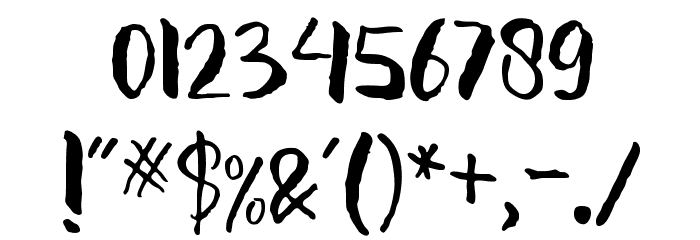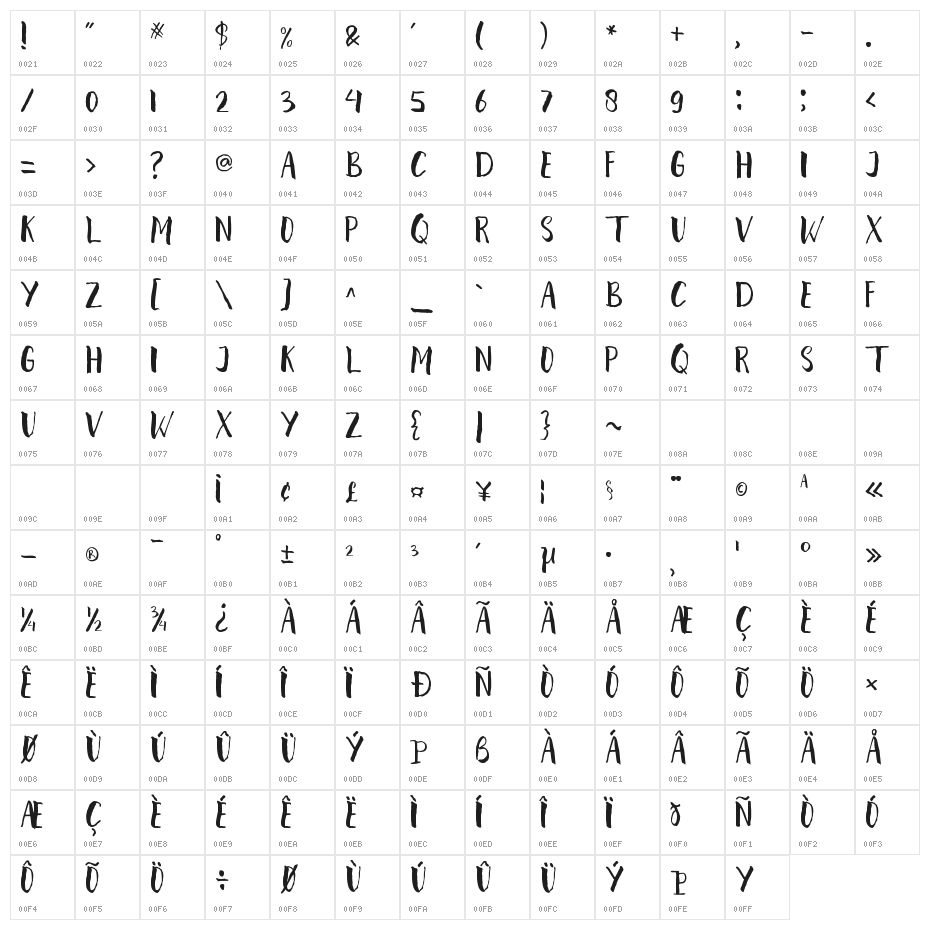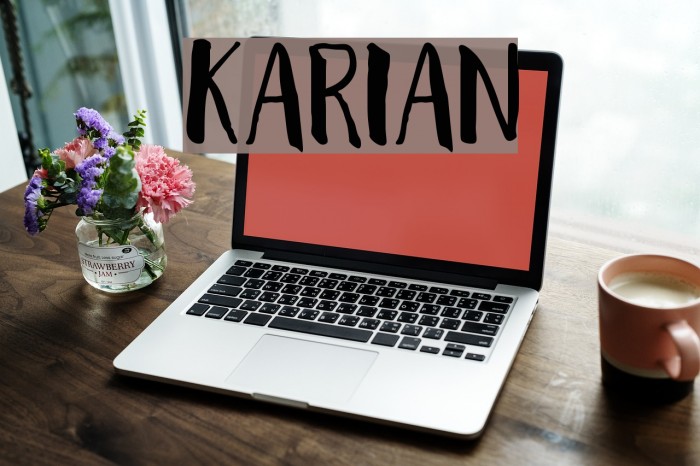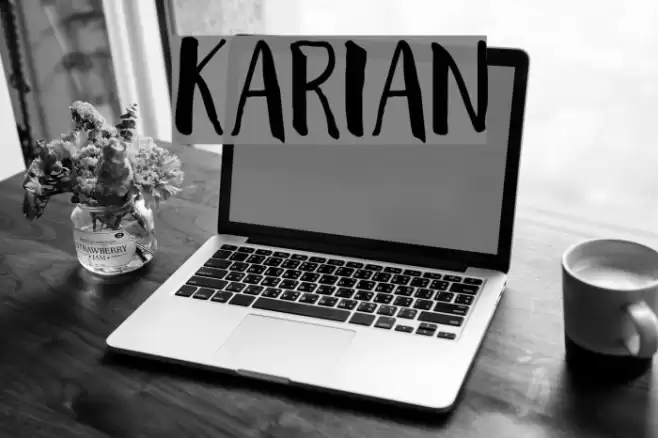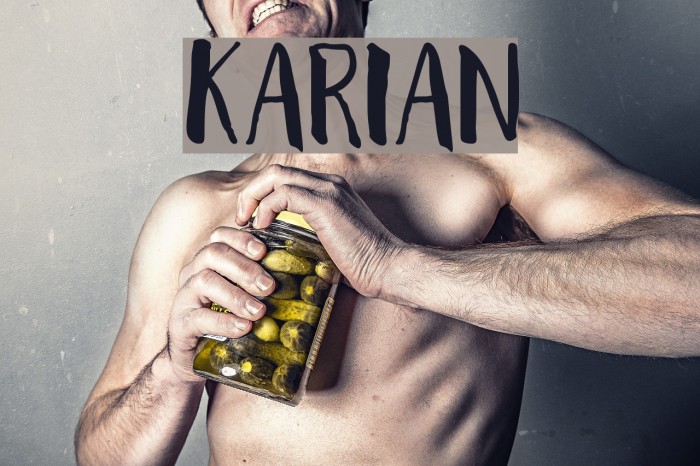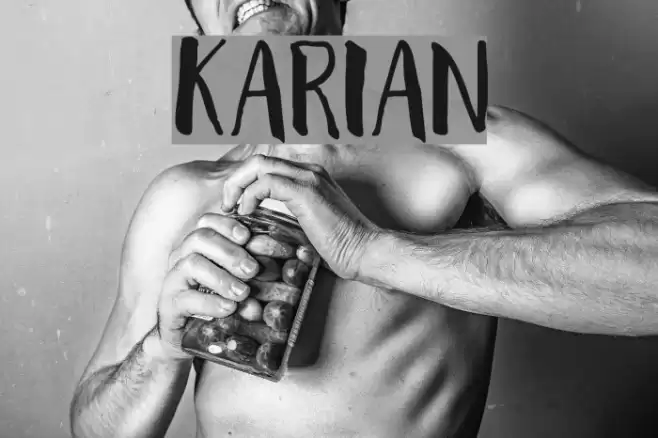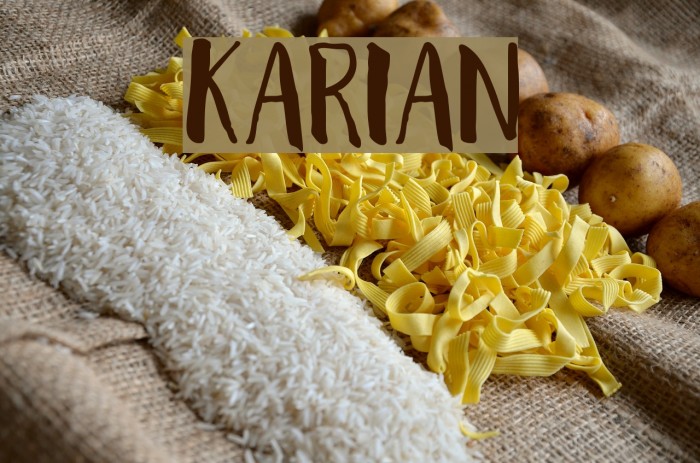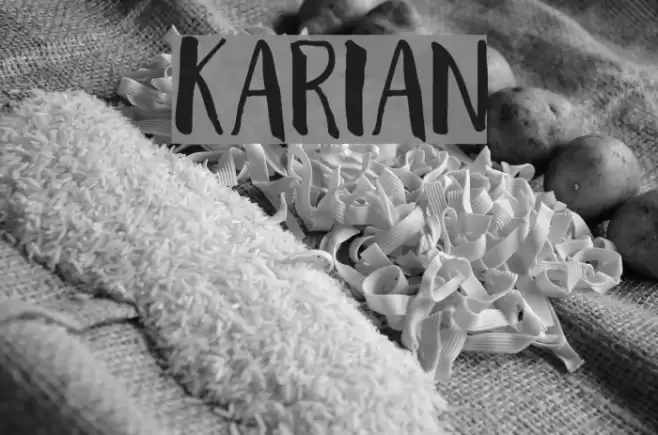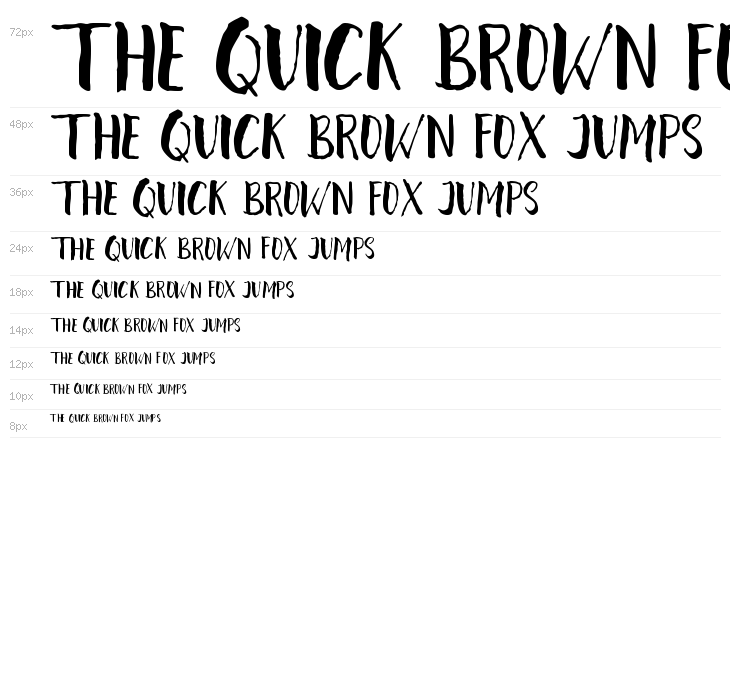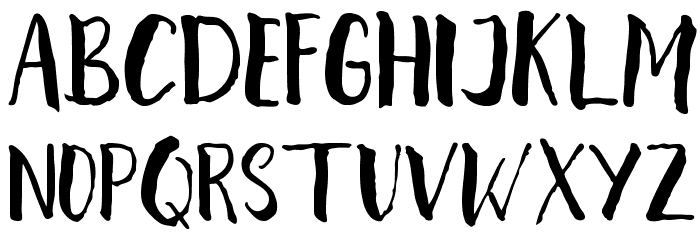
karian Font
karian Description
This font features a bold, expressive style with a hand-drawn appearance. The letters are irregular and dynamic, giving a sense of movement and energy. The strokes vary in thickness, adding a playful and artistic touch. The uppercase and lowercase letters maintain a consistent style, while the numbers and special characters complement the overall aesthetic. This font is ideal for projects that require a personal, creative, and informal look.
| Proposed Projects | Perfect for artistic projects, posters, invitations, and branding that require a personal touch. |